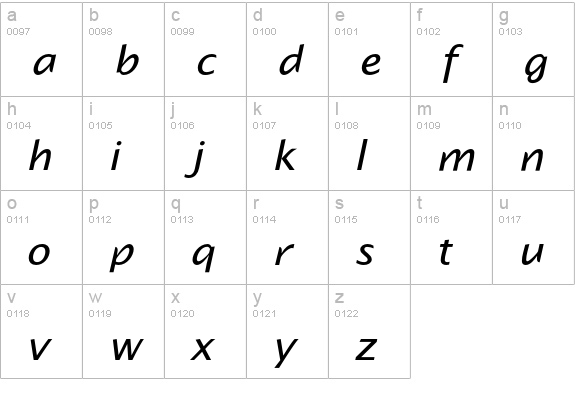
Alphabet2-Italic is a distinctive, italic variant in the Alphabet2 typeface family \xE2\x80\x94 well suited to design and typography projects.
Alphabet2-Italic font is a stylish and elegant typeface that adds a touch of sophistication to any design project. Its sleek italicized characters exude a sense of modernity and class, making it a versatile choice for a wide range of applications. Whether you're creating a professional presentation, designing a sleek logo, or crafting a chic invitation, Alphabet2-Italic font is sure to make a statement. Best of all, this exquisite font is available for free download at FontsMarket.com. So you can elevate your designs without breaking the bank. Don't miss out on the opportunity to add Alphabet2-Italic font to your font collection today and take your projects to the next level.